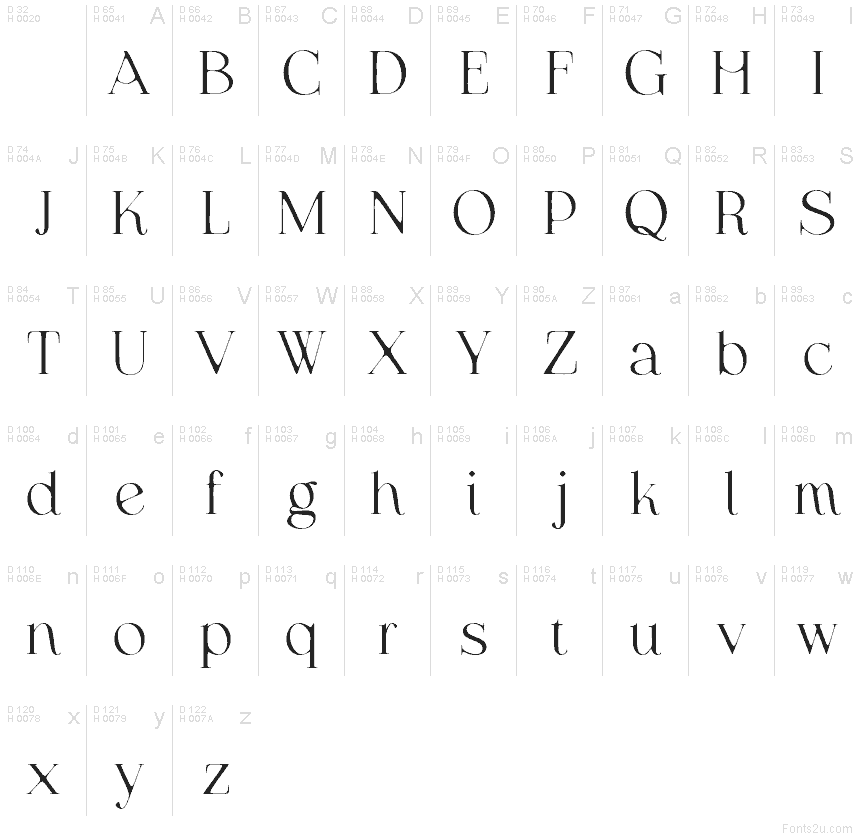
RaenaDrawn-Regular Demo
Raena Drawn font is an elegant serif with a vintage style designed by Craft Supply Co. combining sophistication and a contemporary flair. Tall stems, wave-like strokes, and point endings are elements that distinguish most of the font’s characters, all giving it a unique personality. Thin lines and swashes make this refined typeface suit modern applications in luxury design.
Use Raena Drawn free serif font for your logo for jewelry or clothing brands, or craft typography for signage or branding in boutiques. This typeface also suits classic book covers, certificates, awards, beauty product packages, cards on formal occasions like weddings and anniversaries which will make them impossible to resist!